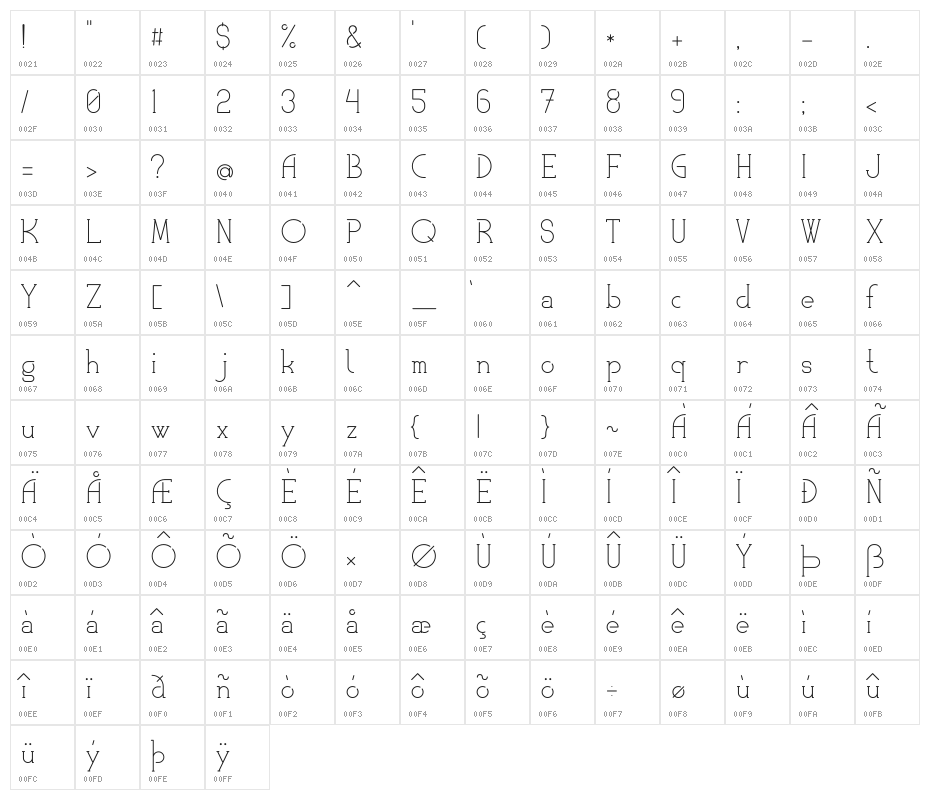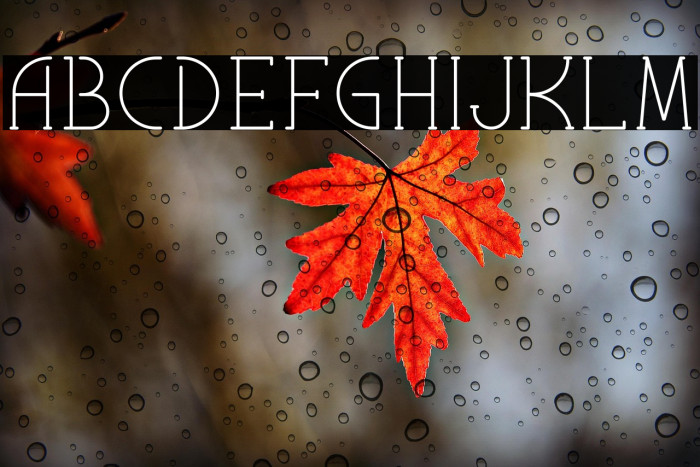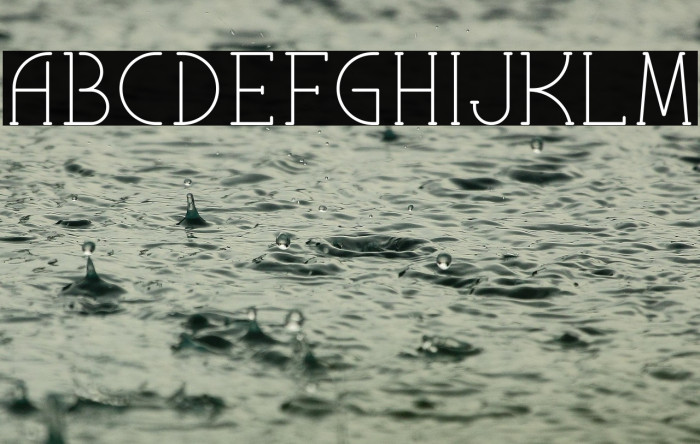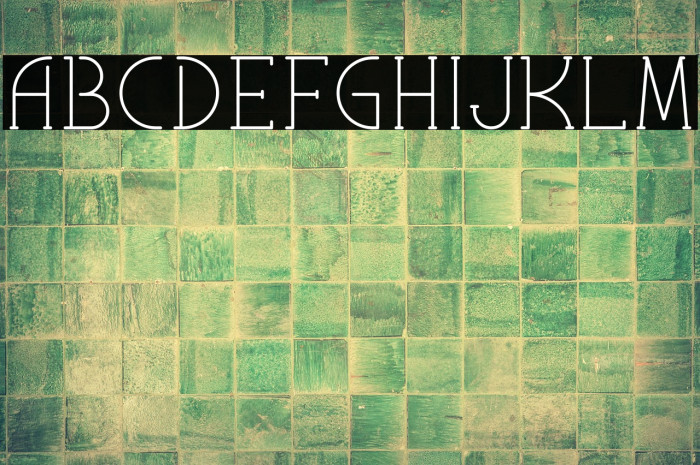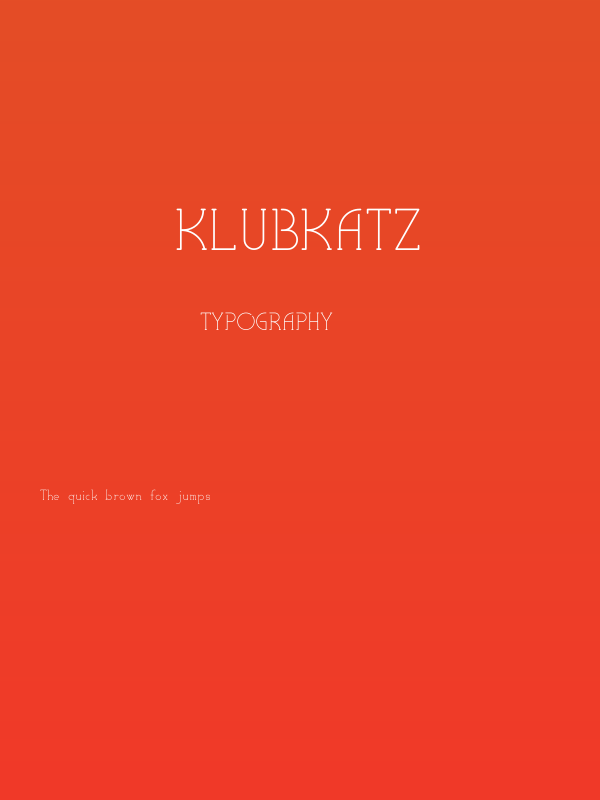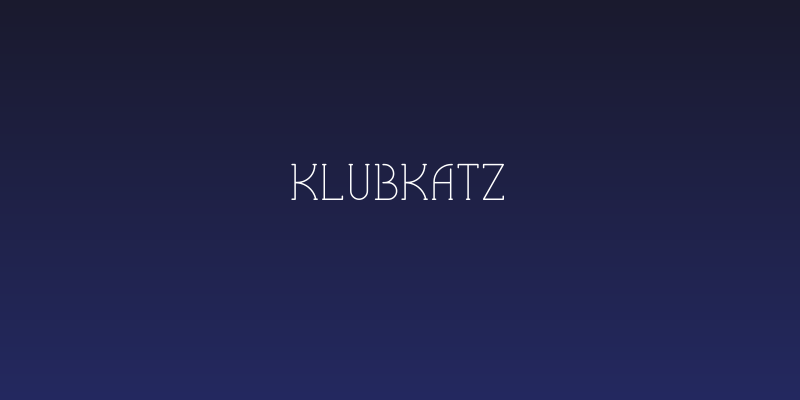
KlubKatz Font
KlubKatz Description
This font features a unique blend of geometric and modern elements, characterized by its clean lines and open curves. The uppercase letters are distinct with a slightly condensed form, while the lowercase letters maintain a consistent height and width, offering a harmonious balance. The numerals are clear and legible, with a uniform stroke width that complements the overall design. Special characters are crafted with precision, adding to the font's versatility. The font's minimalist style makes it suitable for contemporary design projects, providing a sleek and professional appearance.